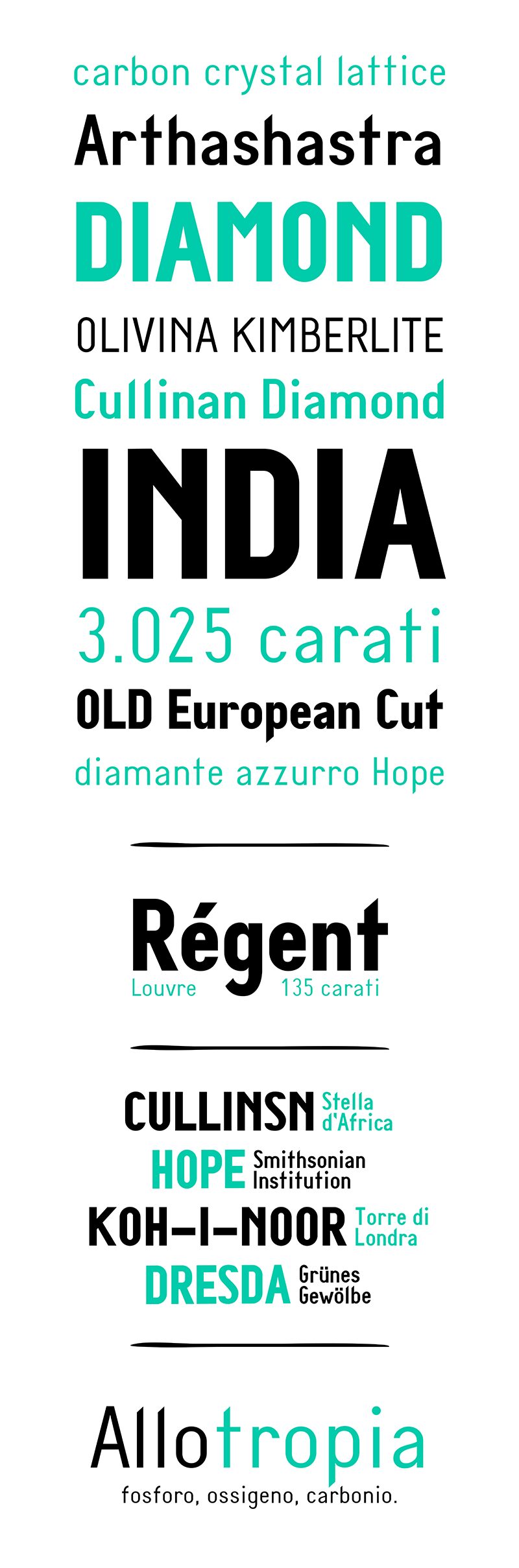
DIAMANTE
Diamante by Katiuscia Mari for monocromo is a free condensed sans serif with an unusually tall silhouette. Broad vertical strokes and sharply cut joins give the letters an architectural quality. The narrow lowercase forms sit close together, producing a dense line with dramatic changes in shape.
Packaging can use that vertical emphasis for fashion labels and slim product panels, and the same severity suits music posters. In magazine design, it can turn cover lines and section openers into strong bands of type with a distinctly contemporary edge.
Diamante is a geometric sans serif font designed using geometric shapes and 45° cuts on the strokes. It is designed as a display font, and its character set is extended to East European languages.
The Diamante family includes:
- Diamante Regular
- Diamante Bold
- Diamante Light